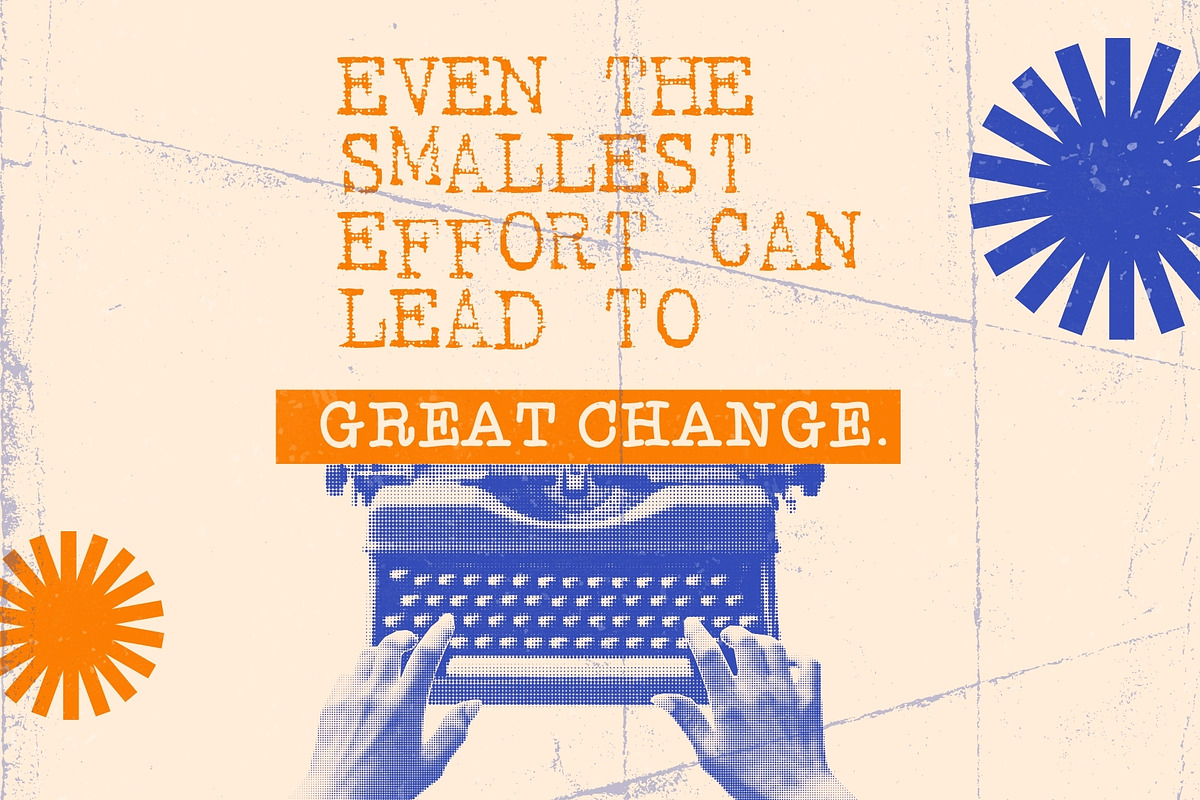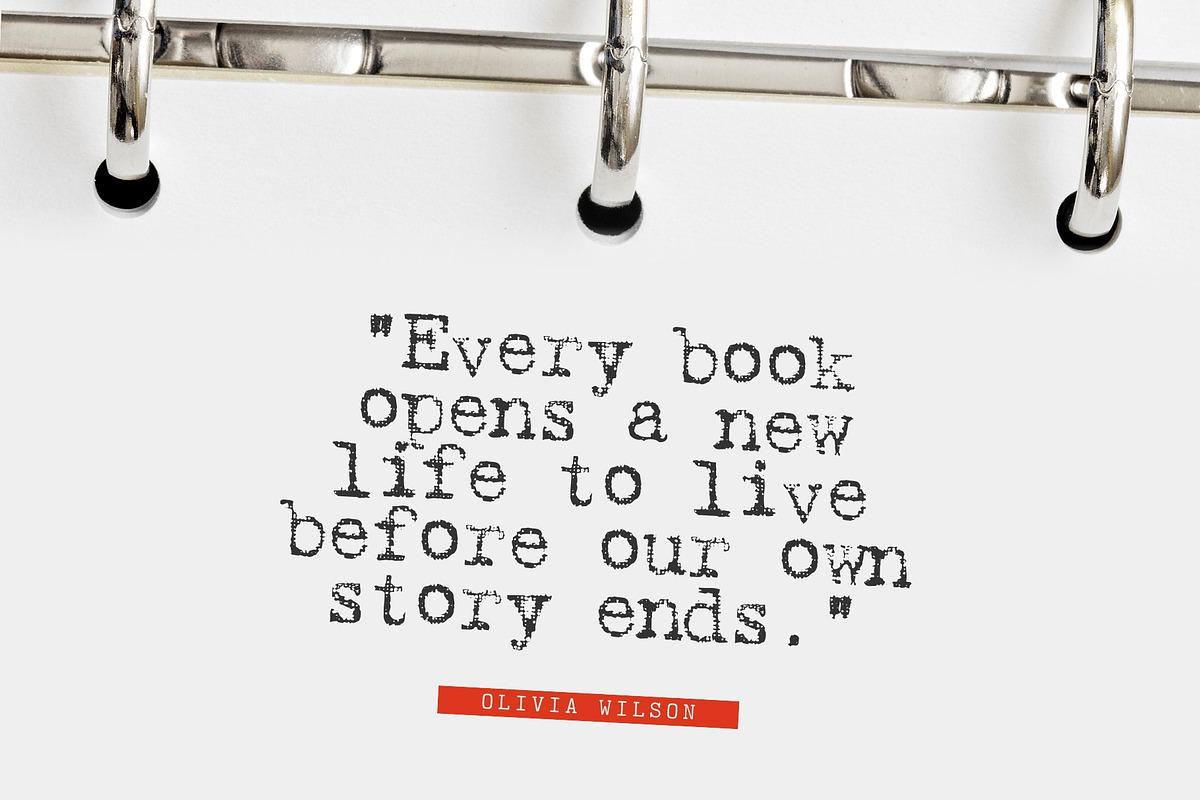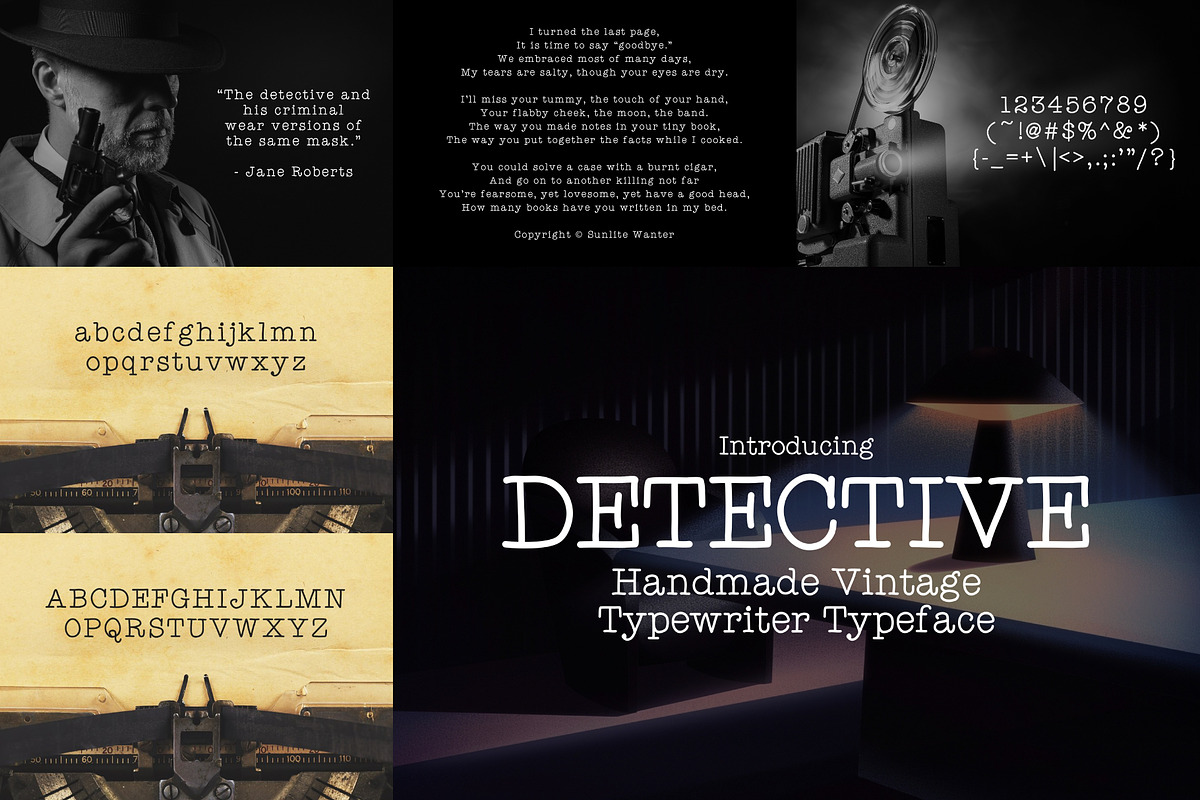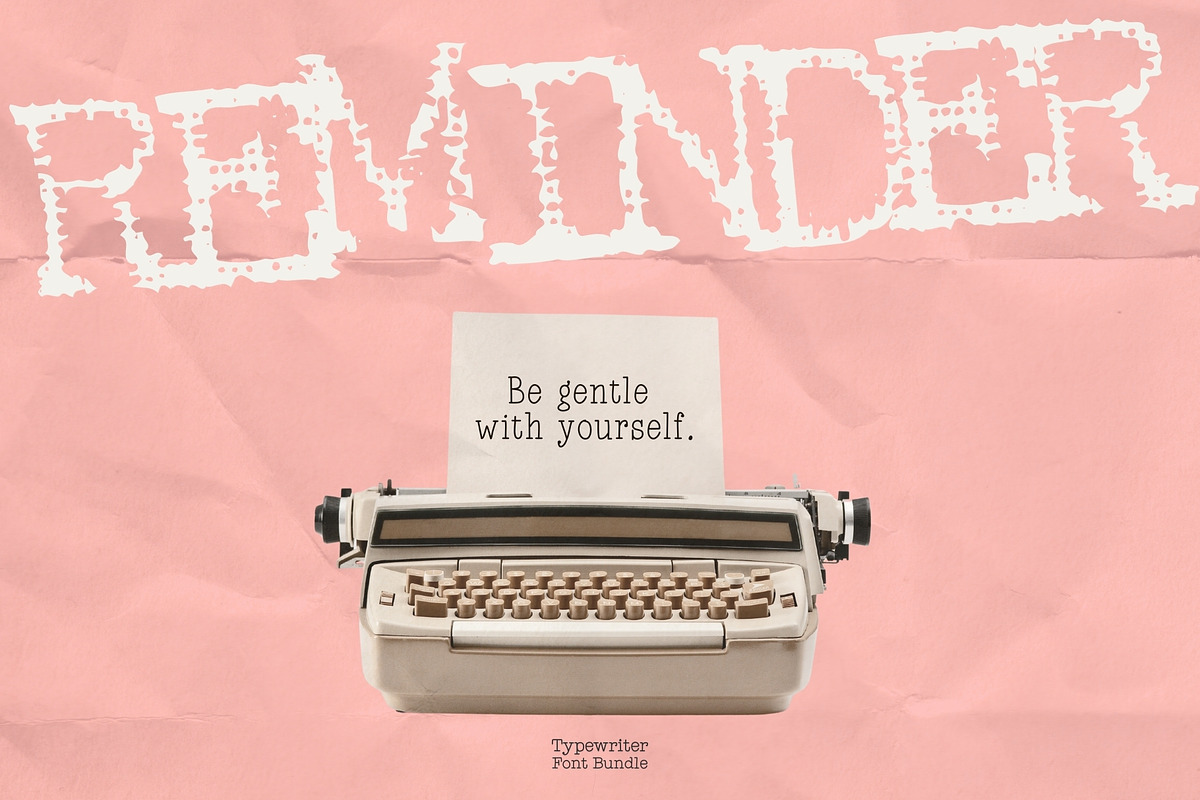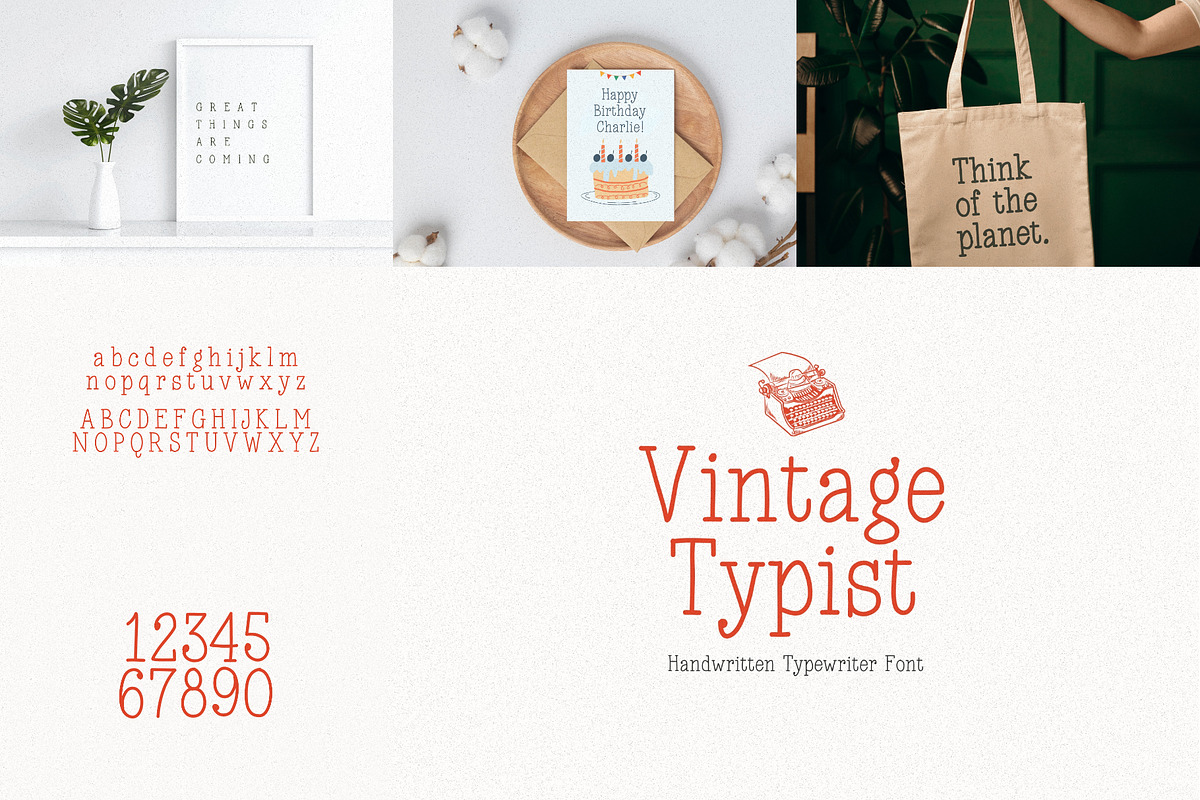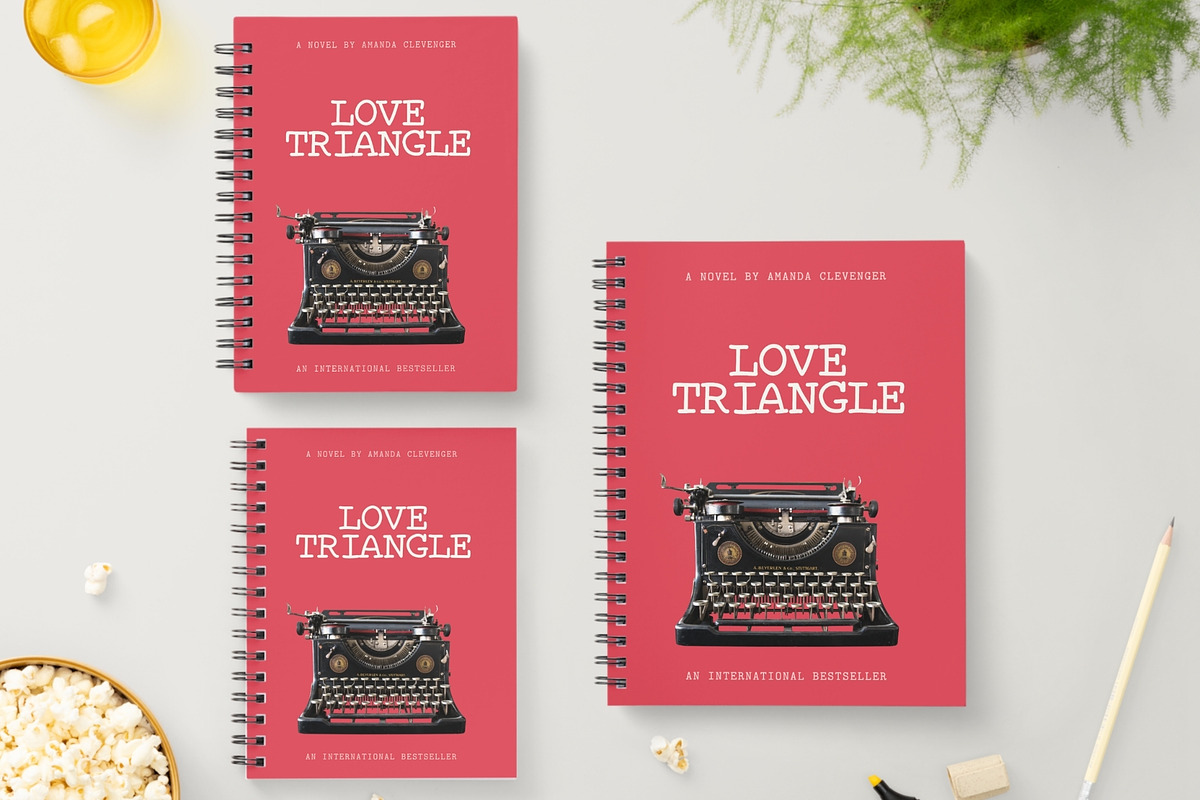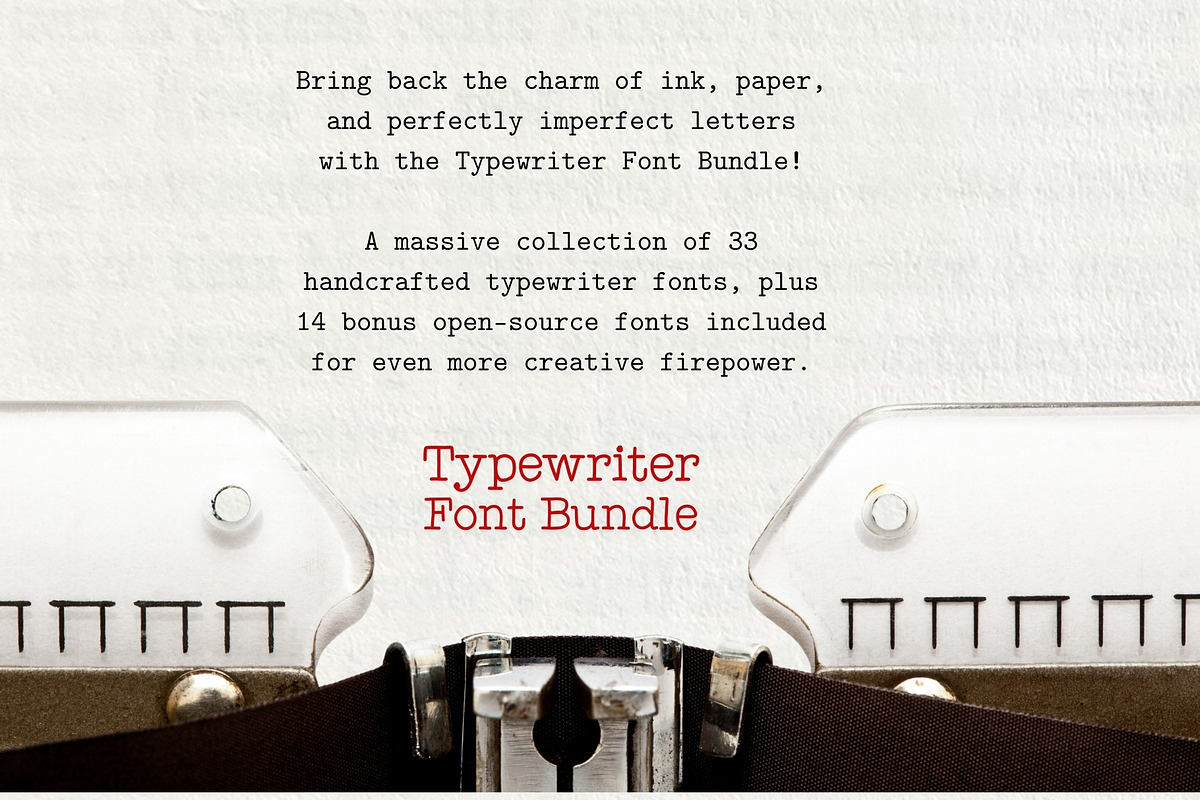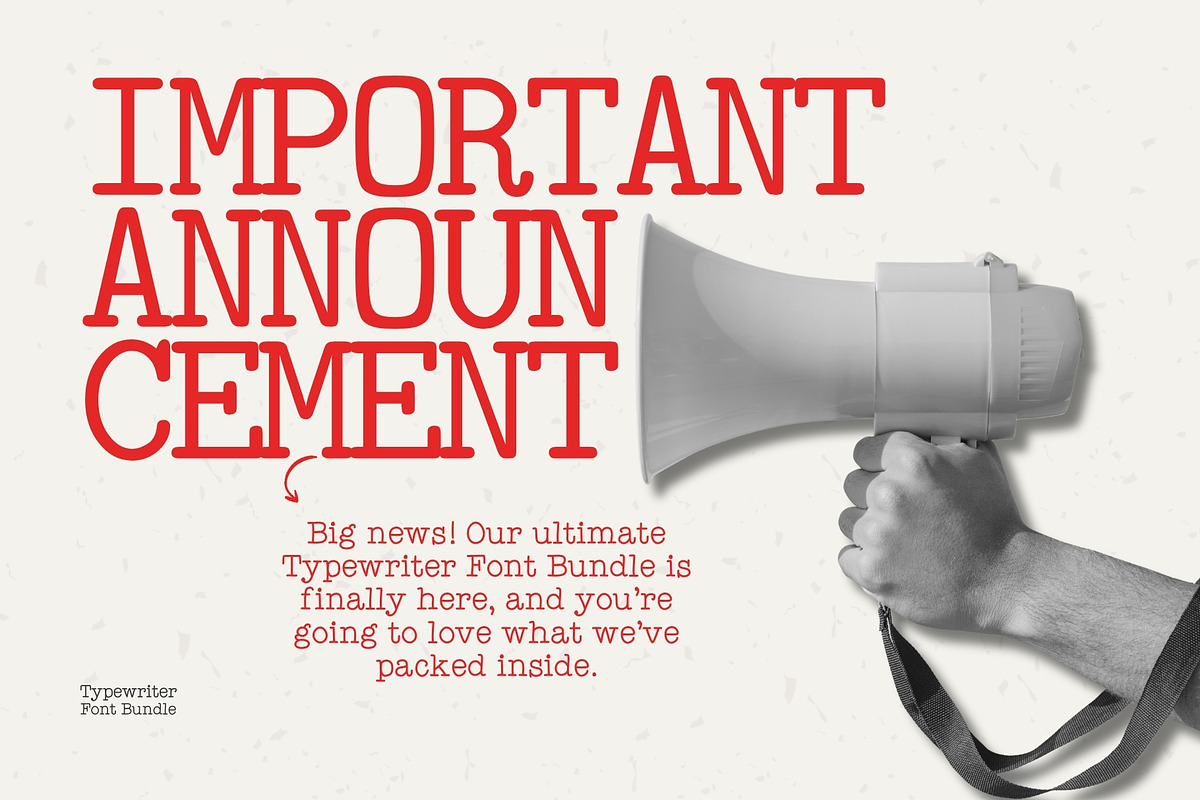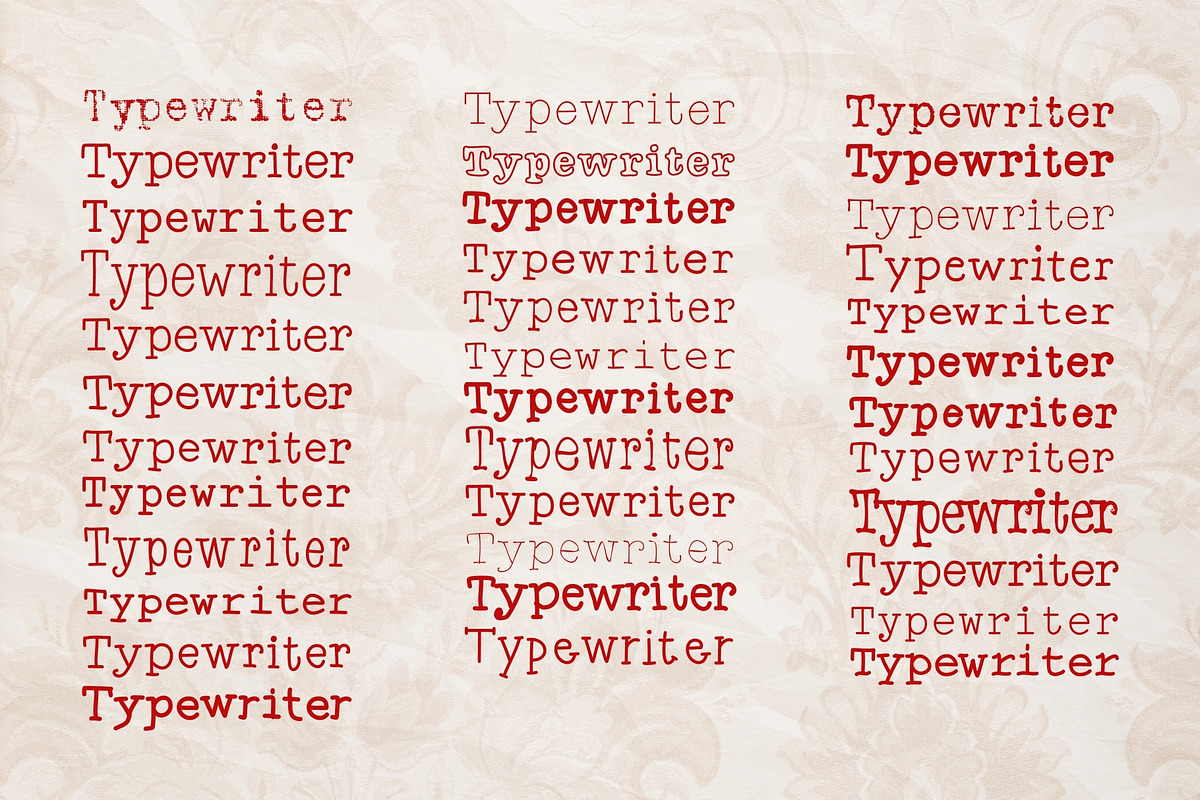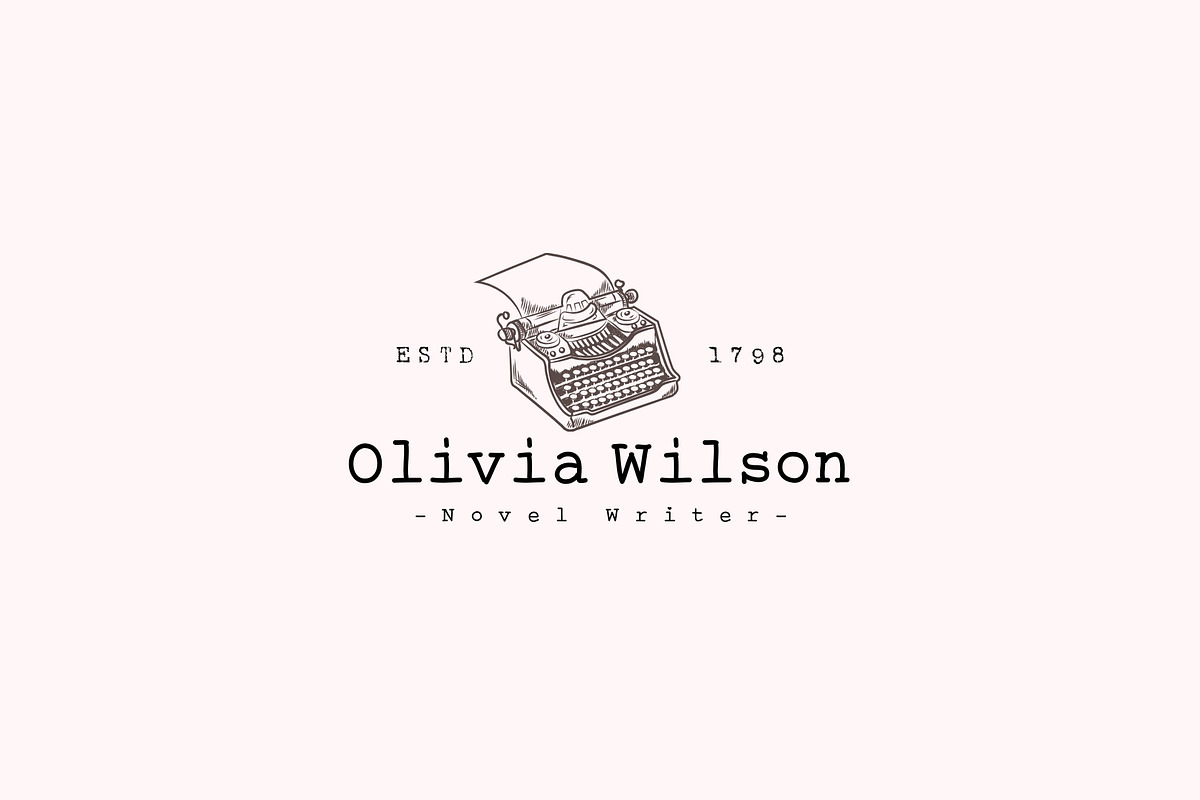
Typewriter Font Bundle – 33 Fonts!
Bring back the charm of ink, paper, and perfectly imperfect letters with the Typewriter Font Bundle, a massive collection of 33 handcrafted typewriter fonts, plus 14 bonus open-source fonts included for even more creative firepower.
This is your one-and-done typewriter collection. No more hunting for the right vintage texture. No more mixing mismatched styles. Everything you need from clean classic type to gritty, worn, and authentically distressed is right here.
Every font in this bundle captures the soul of real mechanical typing: subtle misalignments, ink inconsistencies, organic spacing, and that unmistakable analog character that digital fonts simply can’t fake. Whether you're after old manuscript realism, WWII document vibes, detective noir aesthetics, or modern indie branding with personality this bundle delivers.
🎯 Perfect For
Book covers & editorial layouts
Vintage branding & packaging
Film titles & noir graphics
Historical projects
Journals & planners
Etsy printables
Quotes & social media graphics
Café menus & artisan branding
Scrapbooking & paper crafts
It’s built for designers, creators, filmmakers, writers, small business owners — anyone who wants typography with nostalgia, texture, and timeless character.